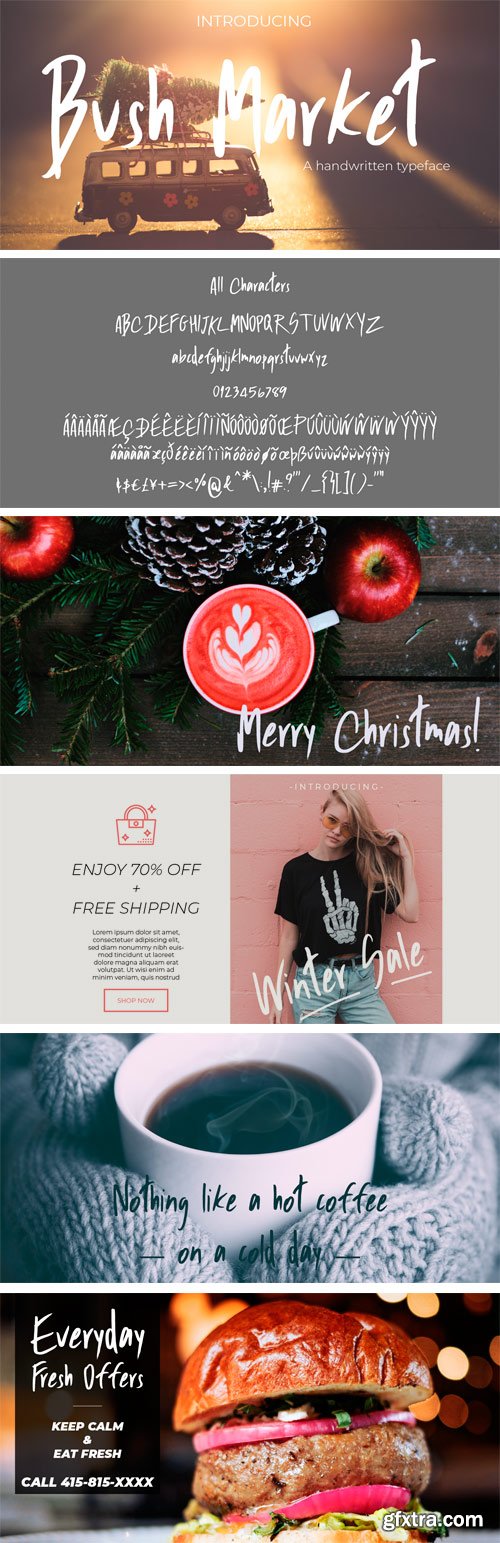
Bush Market is a handwriting script typeface designed to give off a bouncing, fast writing vibe, and informal. It can be used as a handwritten header display or as a stylish text for magazine, blog, branding, packaging, wedding invitation project, etc.